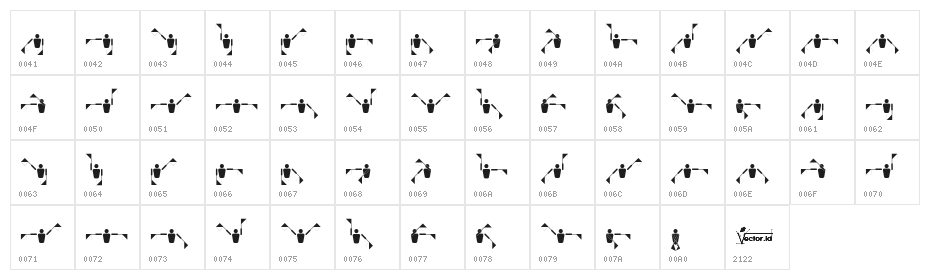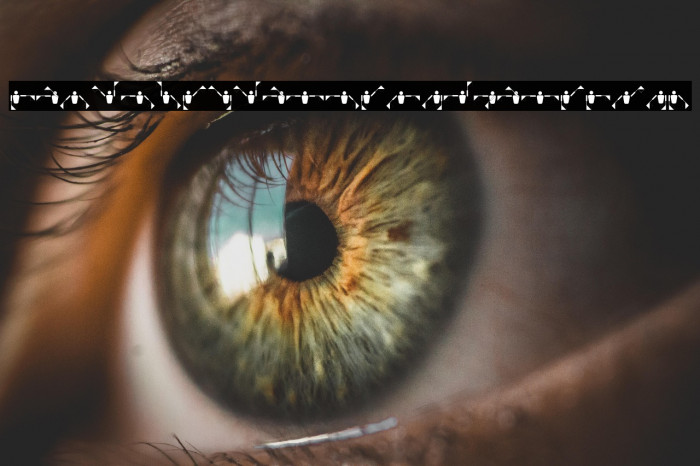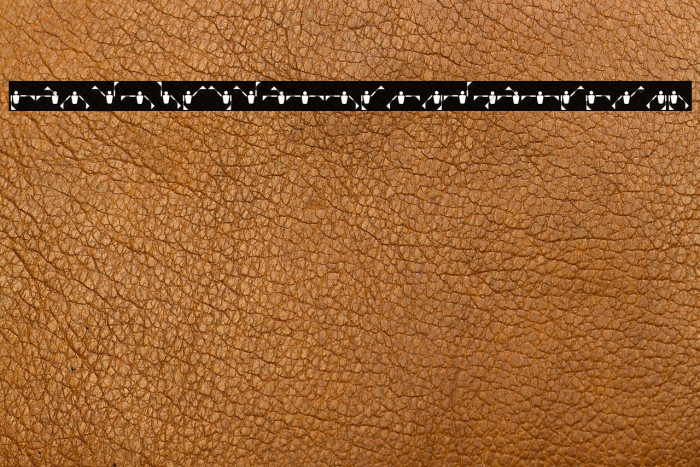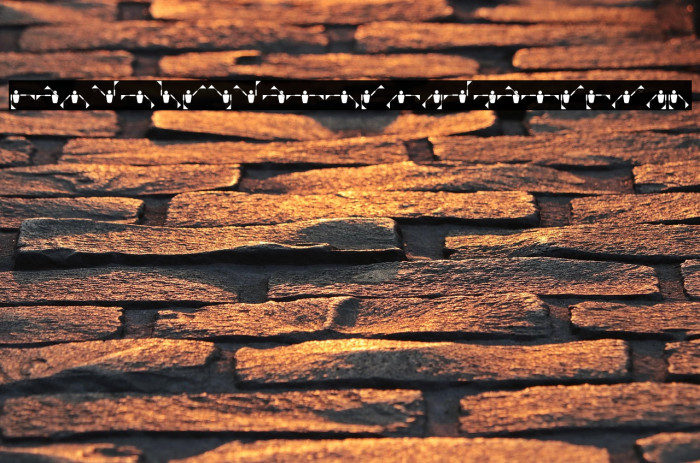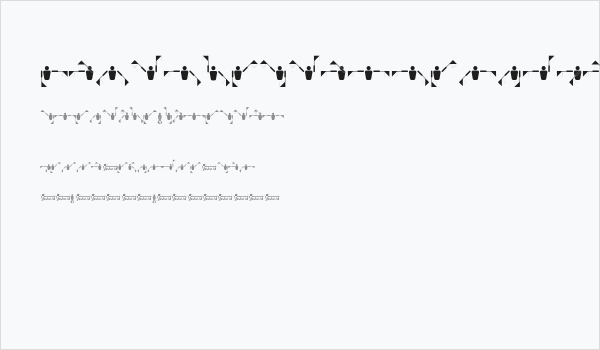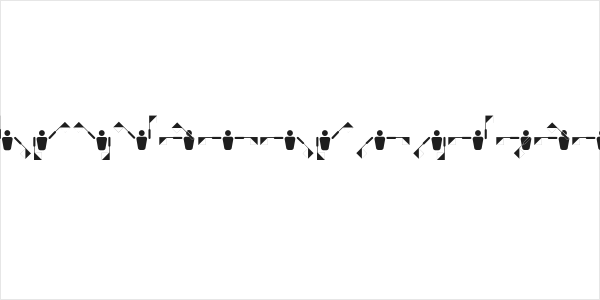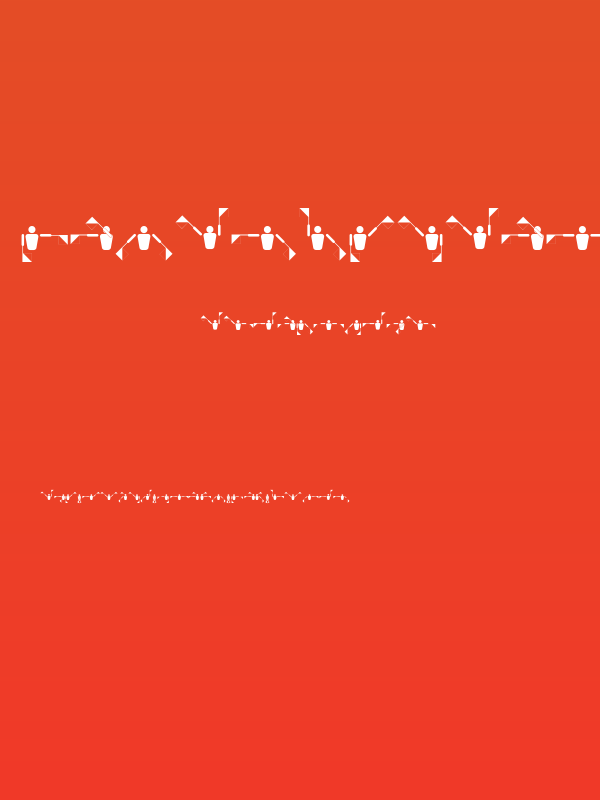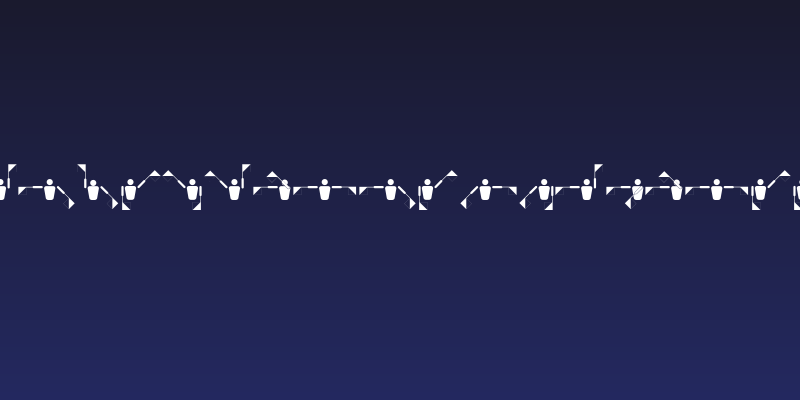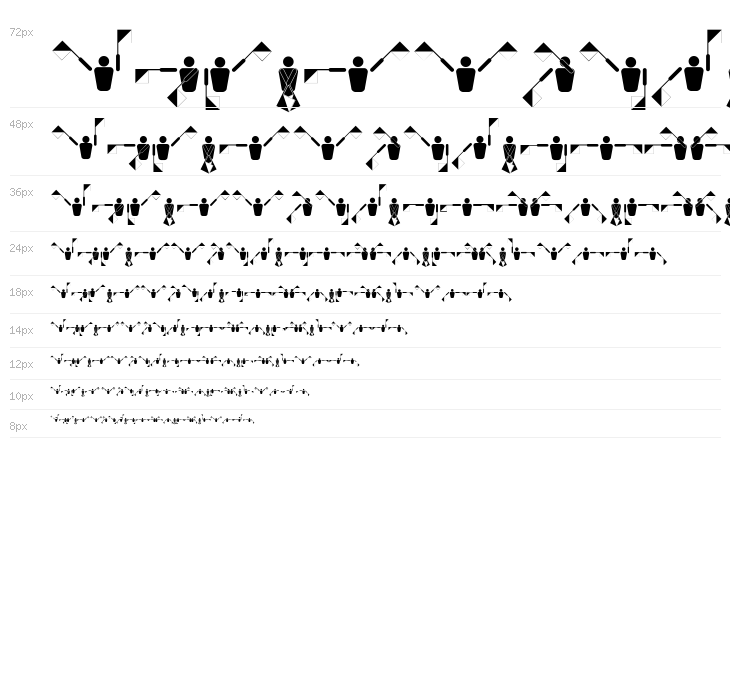
FontsVectorSemaphoreFlag Font
FontsVectorSemaphoreFlag Description
This font creatively uses semaphore flag signals to represent each character, combining visual elements of maritime communication with typography. Each letter and number is depicted through a stylized figure holding flags in various positions, making it both unique and visually engaging. The design is consistent across all characters, maintaining a playful yet structured appearance. This font is ideal for projects that require a nautical theme or wish to incorporate elements of communication and signaling in a novel way.
| Use Case | Logos, Posters, Themed Events |
| Proposed Projects | Ideal for maritime-themed designs, educational materials on communication, or creative projects needing a unique visual element. |